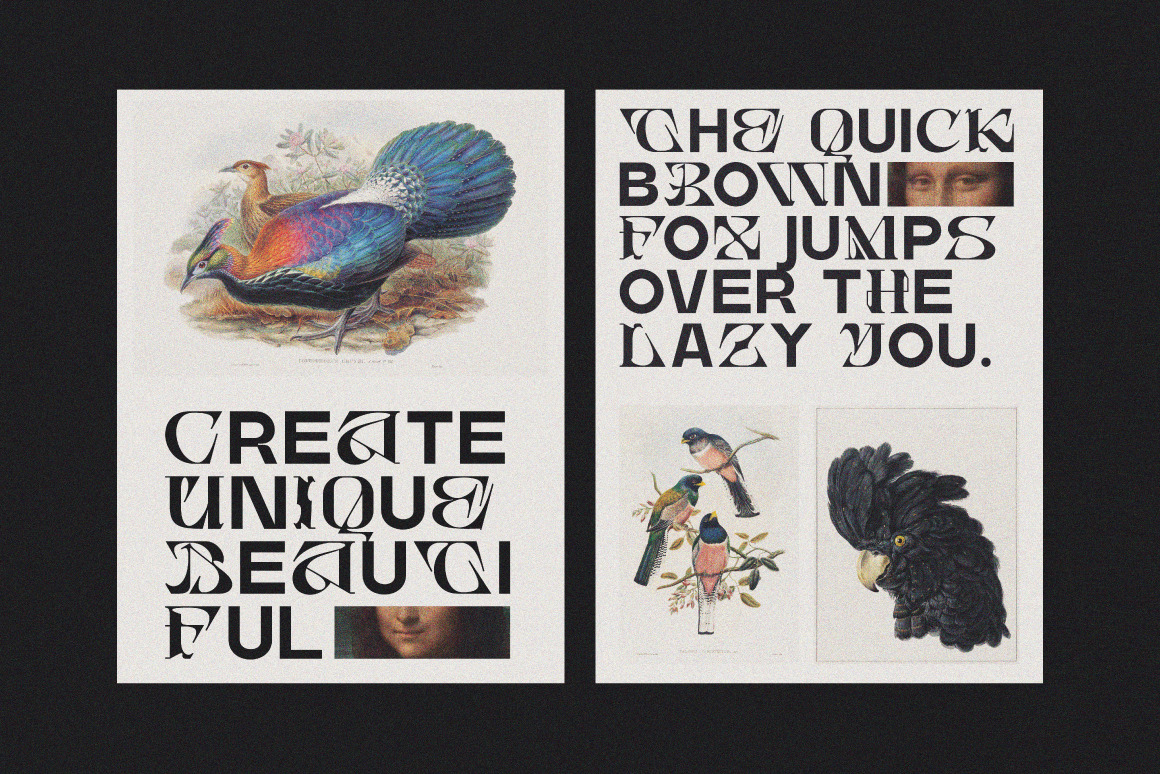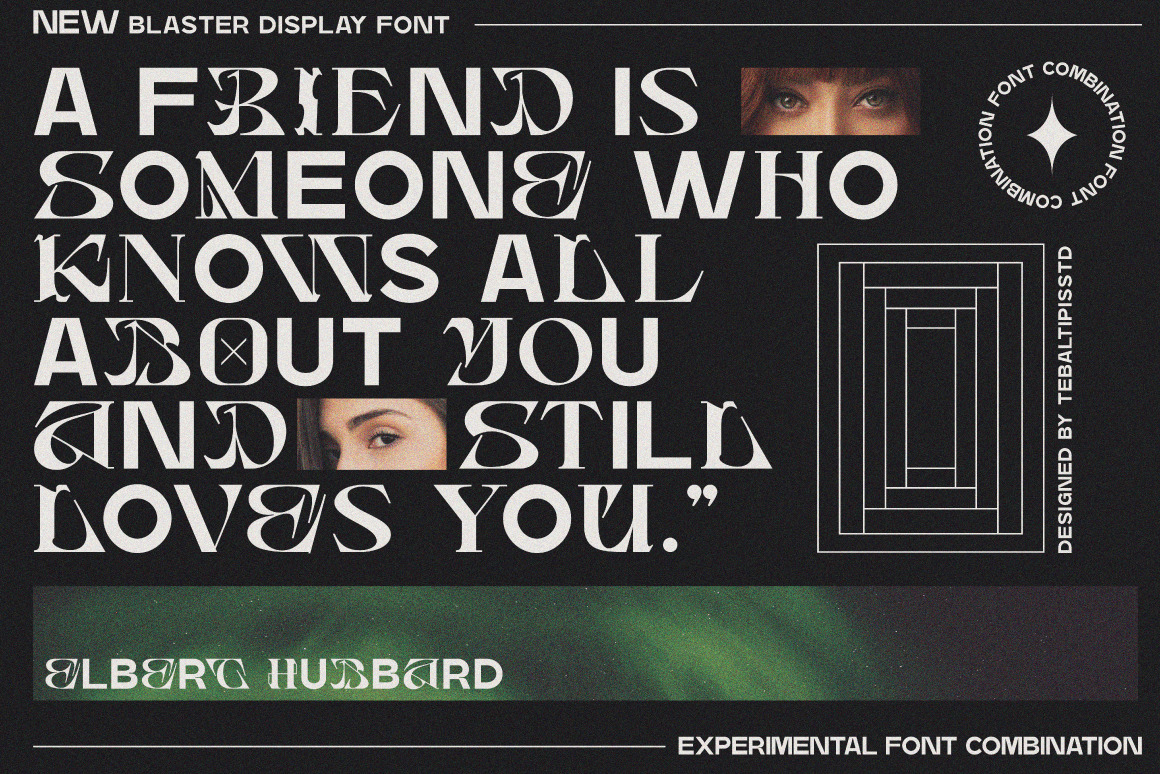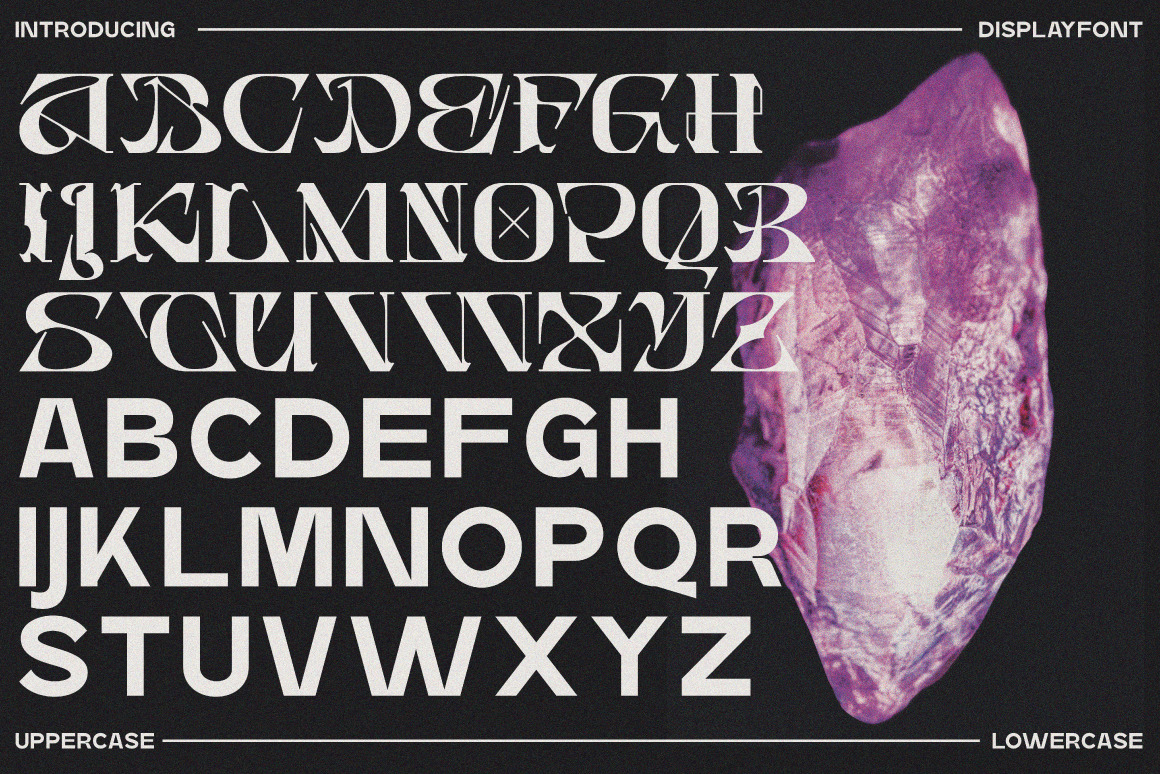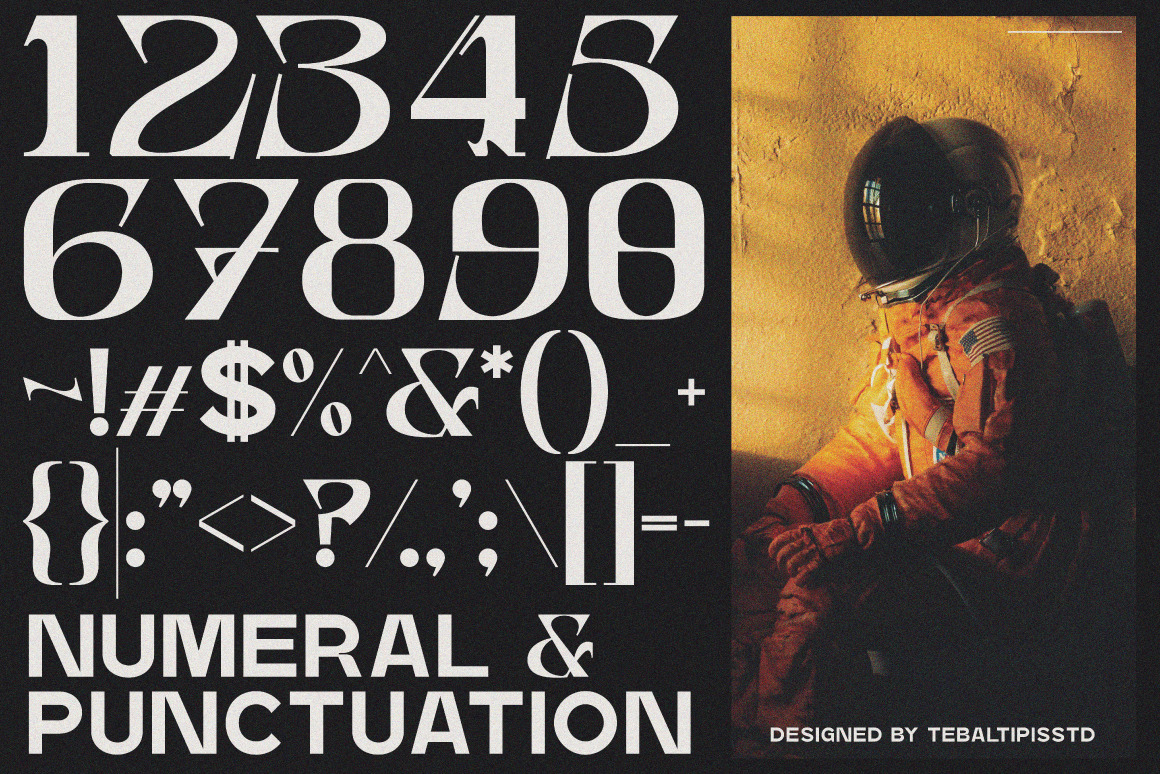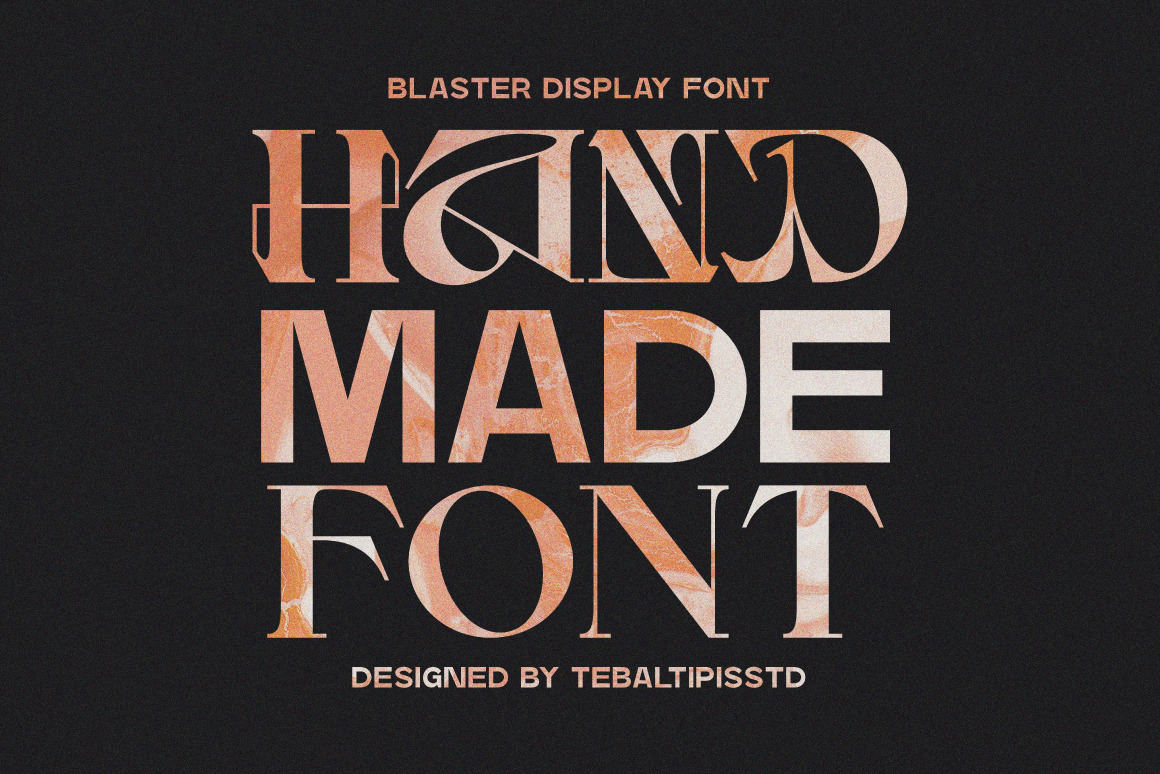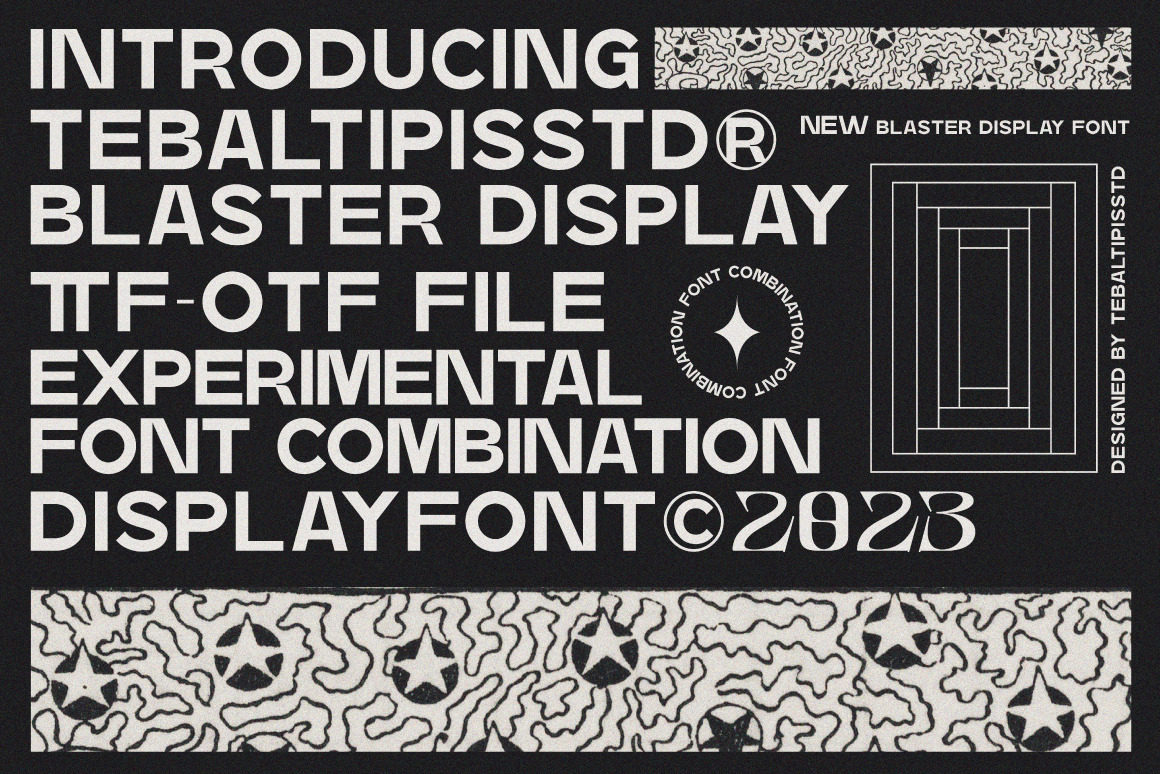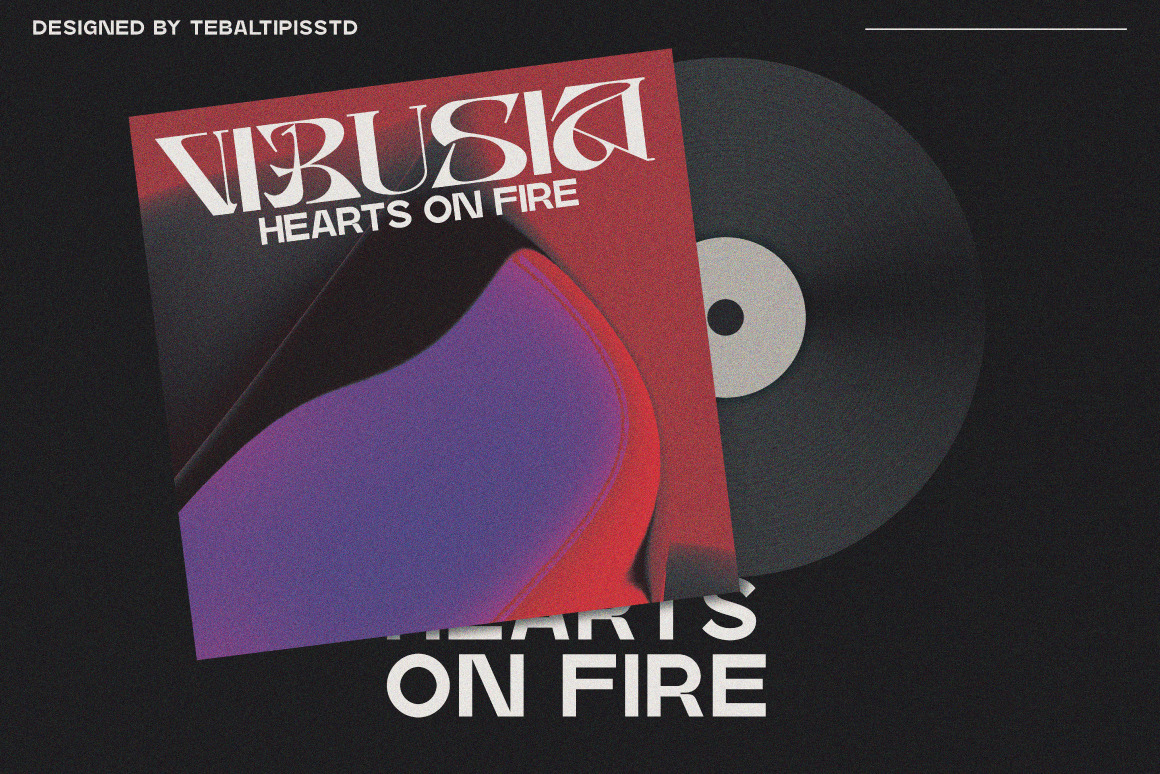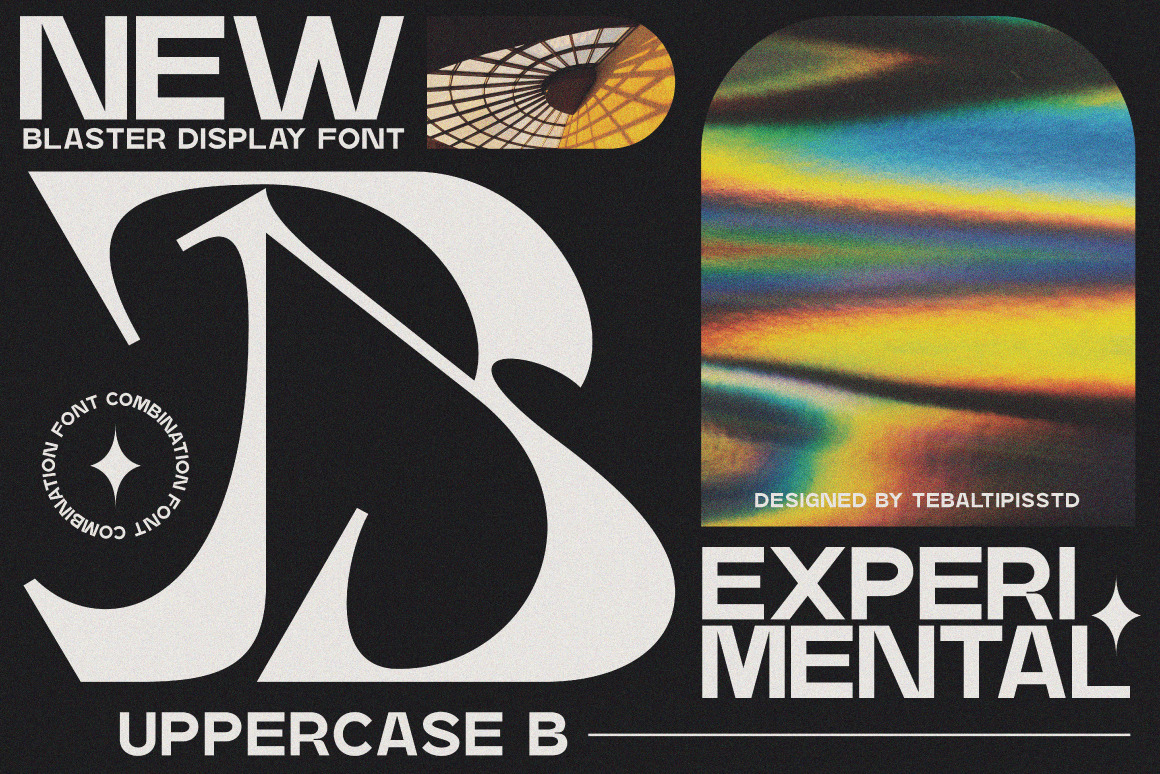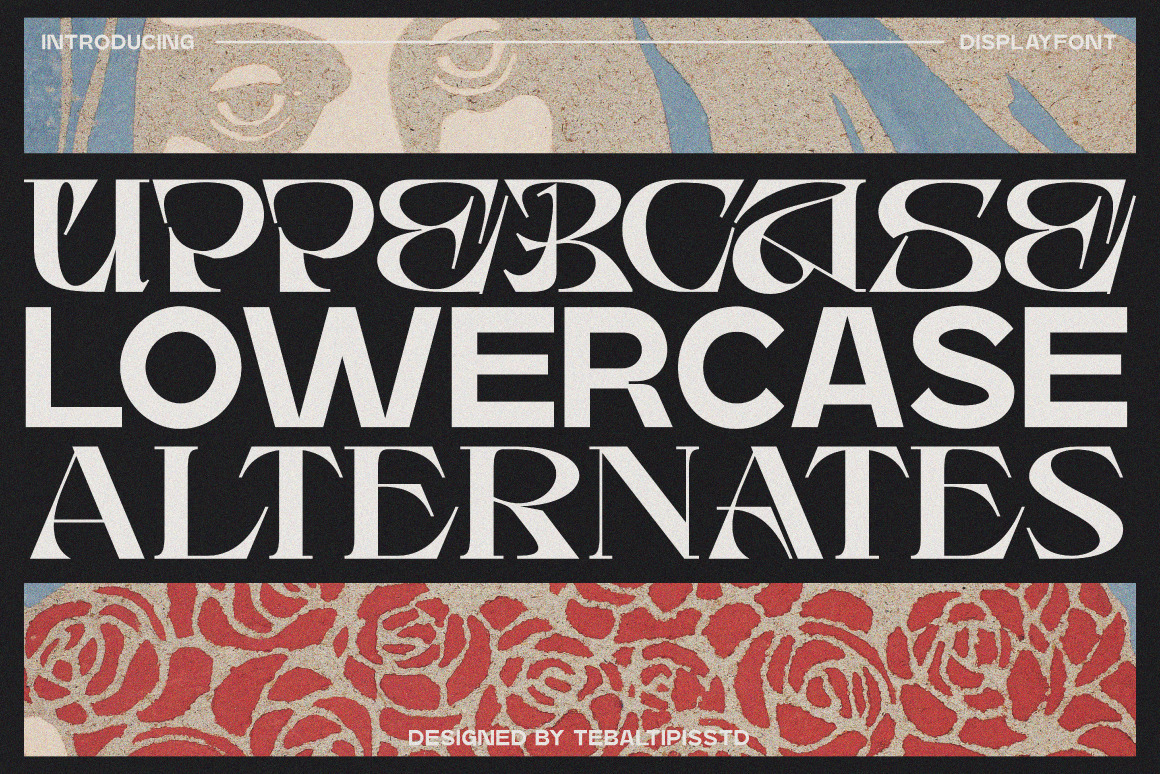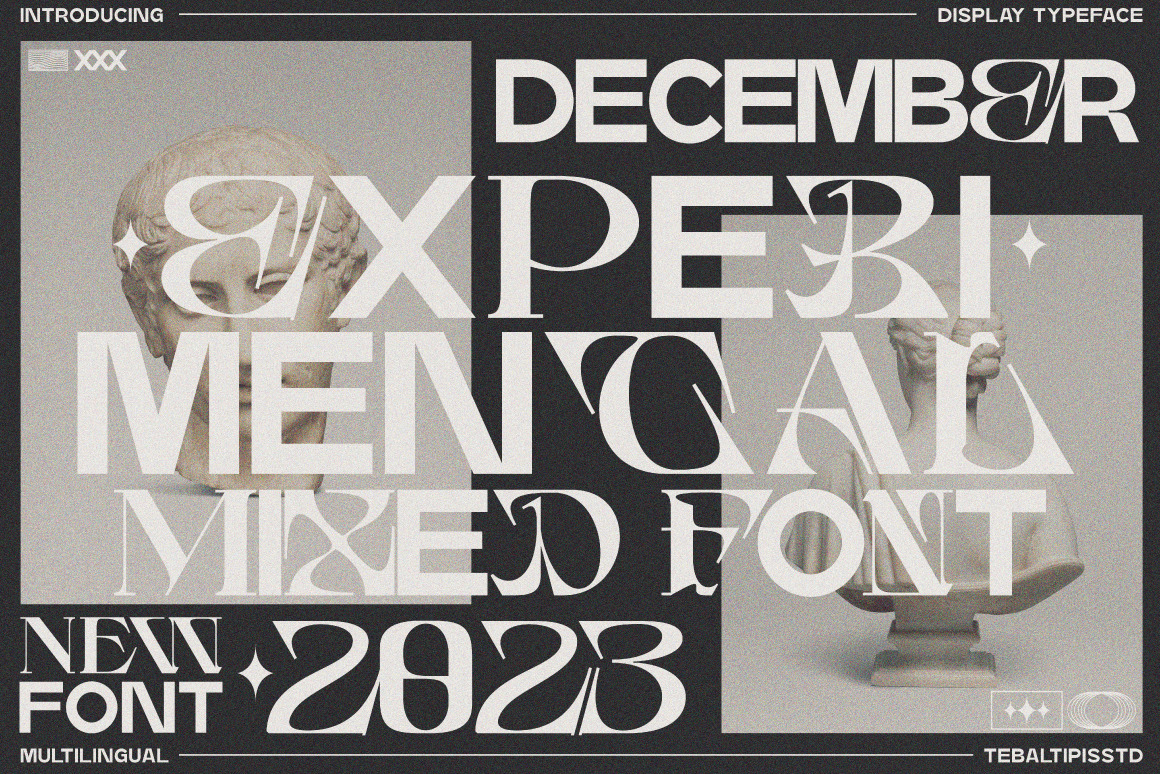
Blaster - Combination Typeface by Tebaltipislab | Creative Market
Blaster Display is an experimental combination font. include 3 fonts that have a very different style and appearance, but make this font look unique. This font equipped with several features such as alternative characters, ligatures, and multi-language support that makes it easier for you to design. This font is perfect for your design needs such as poster design, logo design, branding, social media design, book, magazine, etc. WHAT'S YOU GET - Blaster Display TTF, OTF - Unique Letterforms - Works on PC & Mac - Simple Installations - Accessible in the Adobe Illustrator, Adobe Photoshop, Microsoft Word - Fully accessible without additional design software. I really hope you'll get pleasure using Blaster Display and it will be perfect addition to your font collection! Contact me with an inbox message If you have any question. Thank you! Happy Creating. | Blaster - Combination Typeface | tebaltipislab